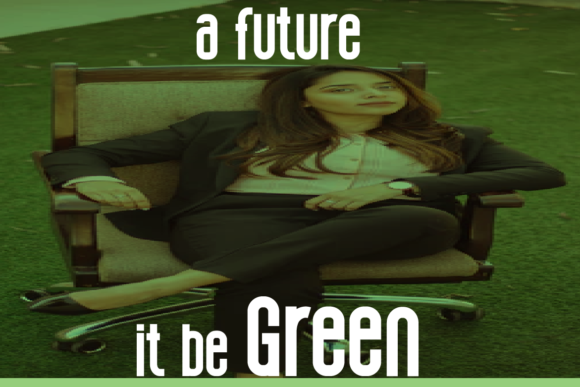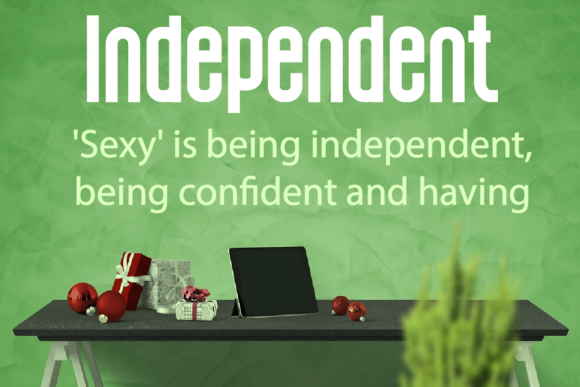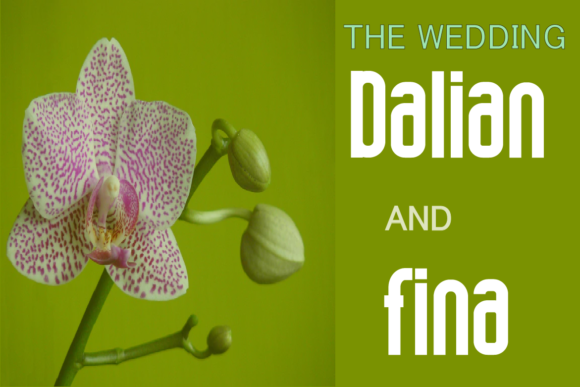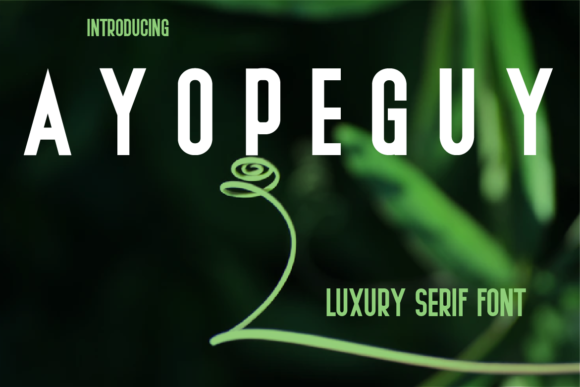
Introduction to Ayopeguy Font
Ayopeguy is a simple and modern sans serif font.
Key Features of Ayopeguy Font
Why Choose Ayopeguy Font?
Ayopeguy Font offers exceptional quality and versatility, making it a valuable addition to your design toolkit. Whether you’re creating for personal projects or commercial use, Ayopeguy Font delivers professional results.